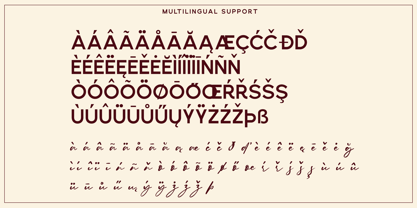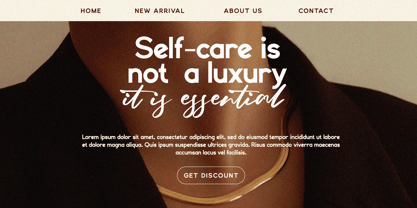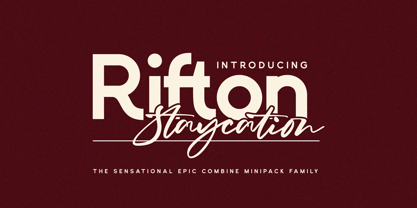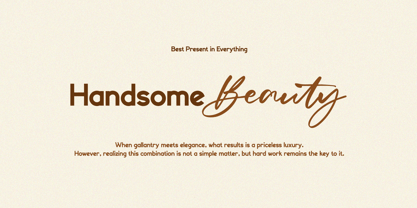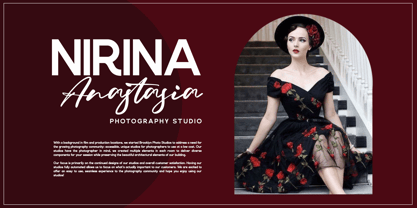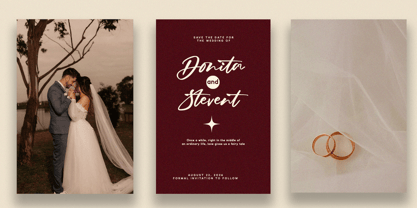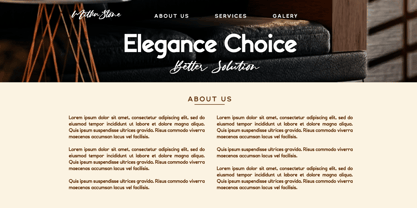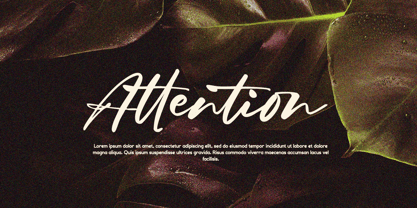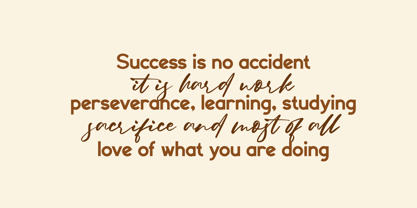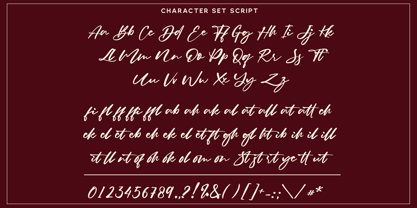
Rifton Staycation
by Haksen
The Rifton Staycation Font Family was designed by Sarwo Edhi Prayitno and published by Haksen. Rifton Staycation contains 3 styles and family package options. More about this family
Rifton Staycation is a versatile and elegant typeface family designed to bring warmth, personality, and modern sophistication to your creative projects. This family includes Sans, Sans Italic, and a beautifully crafted Script style, offering a perfect balance between clean structure and expressive flair. The Sans style features a smooth, geometric construction with a contemporary feel—ideal for branding, editorial layouts, packaging, and digital interfaces. Its Sans Italic counterpart adds a subtle sense of motion and emphasis, perfect for highlighting key messages without losing clarity. Meanwhile, the Script style introduces a flowing, handwritten charm, making it perfect for signatures, invitations, logos, and creative headlines. Whether you're crafting a modern brand identity or adding a personal handwritten touch, Rifton Staycation gives you the flexibility and style to elevate your work with ease. Happy Designing! Haksen
Designers: Sarwo Edhi Prayitno
Foundry: Haksen